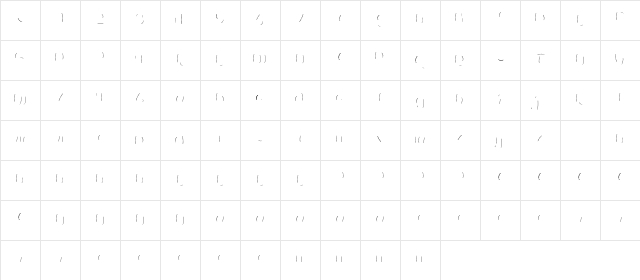
Bigfoot 2 Regular
| Designer | Lettersiro 2018 |
Design Context for Bigfoot 2 Typeface
Bigfoot 2 is a composed and adaptable typeface that performs quietly and consistently across a wide range of design contexts.